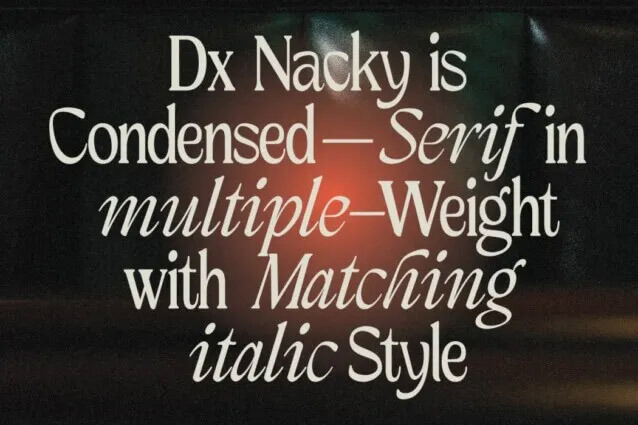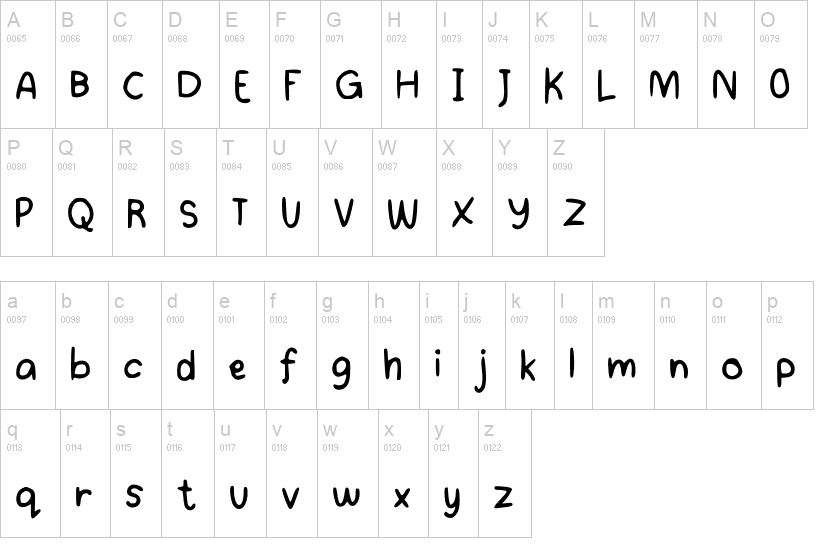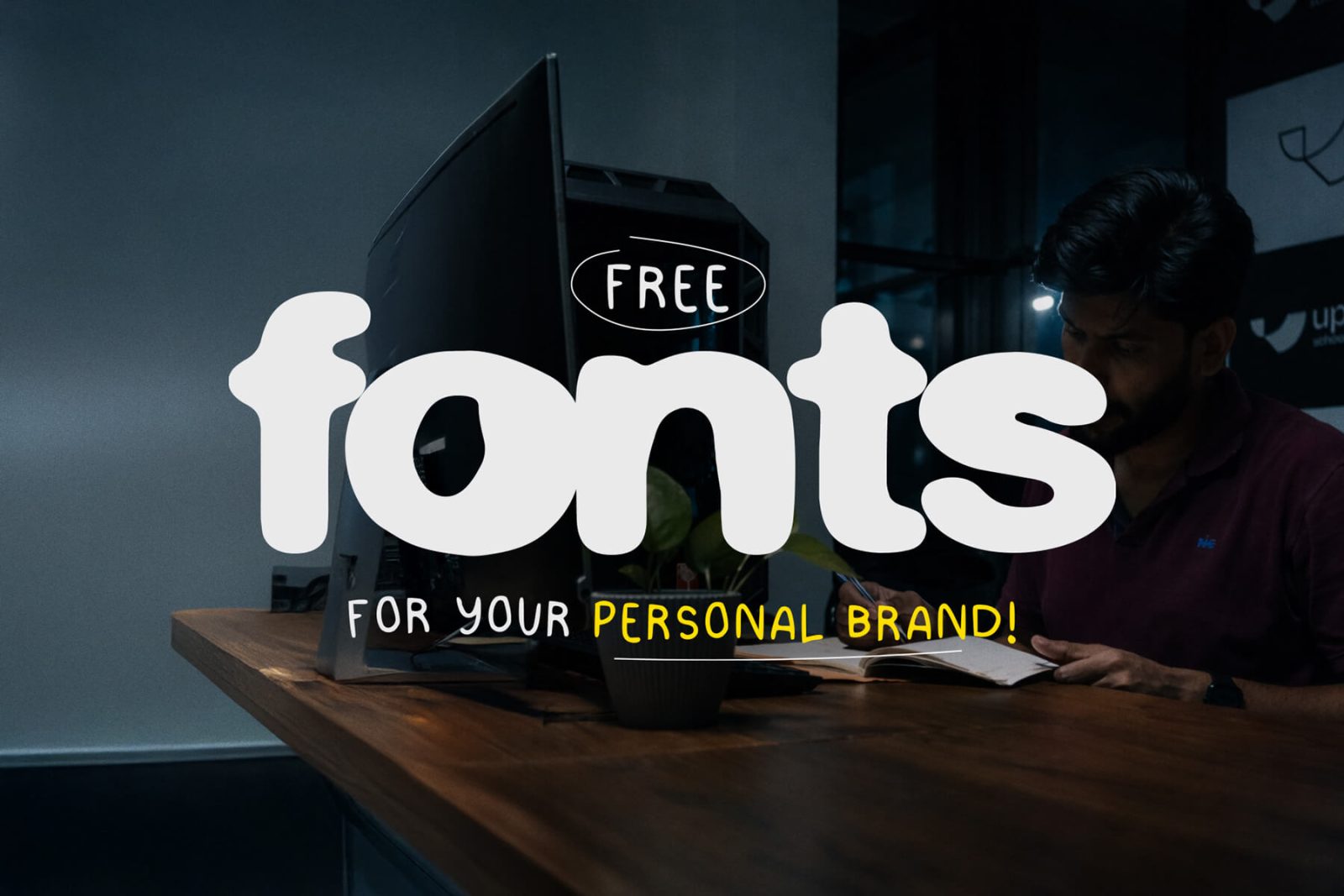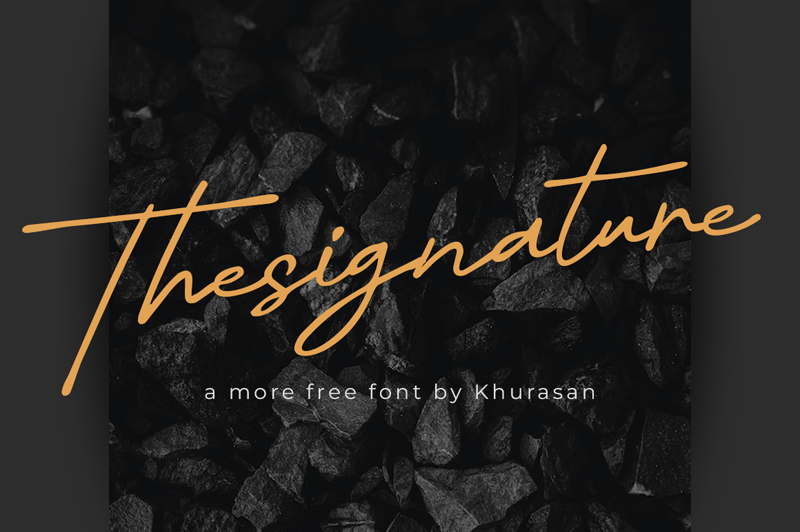
Free Fonts for Personal Branding & Design 2026 (Handpicked Collection)
Typography plays a key role in branding and visual communication. In this post, you’ll find a handpicked collection of free fonts suitable for personal brands, portfolios, Instagram posts, posters, websites, and creative projects. Each font is previewed and organized below — simply click the download link to get started.
1. Handwriting Font by athy!!
Best suited for personal branding, quotes, Instagram posts, and creative projects.
2. Drowner – Display Font by Hainz Studio
Ideal for bold headlines, posters, logos, and modern design layouts.
3. The Signature – Script Font by Khurasan
A clean script font for logos, personal brands, and signature-style designs.
4. DxNacky – Serif Font
Best for clean branding, website typography, and premium design projects.